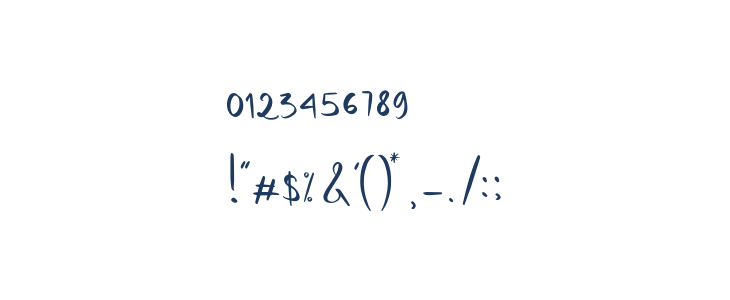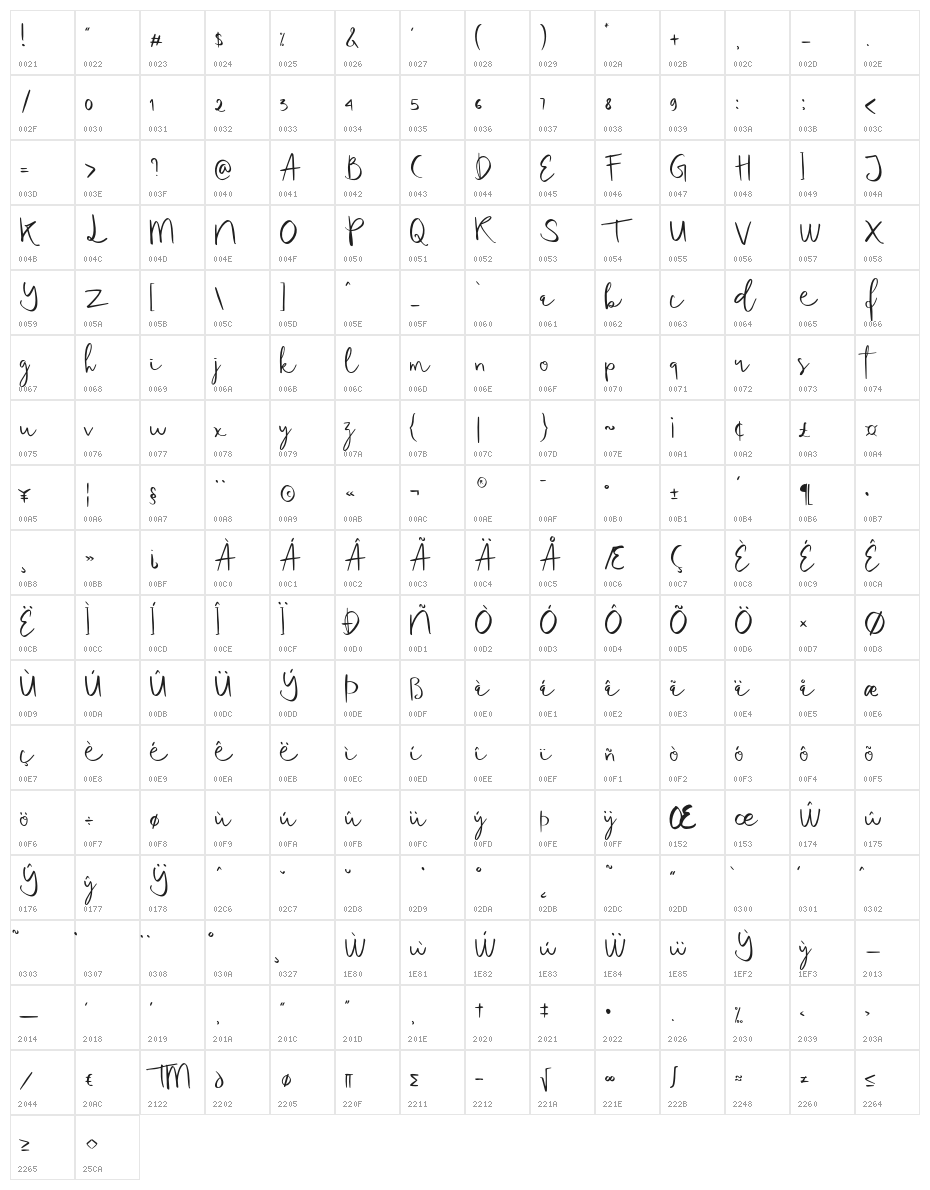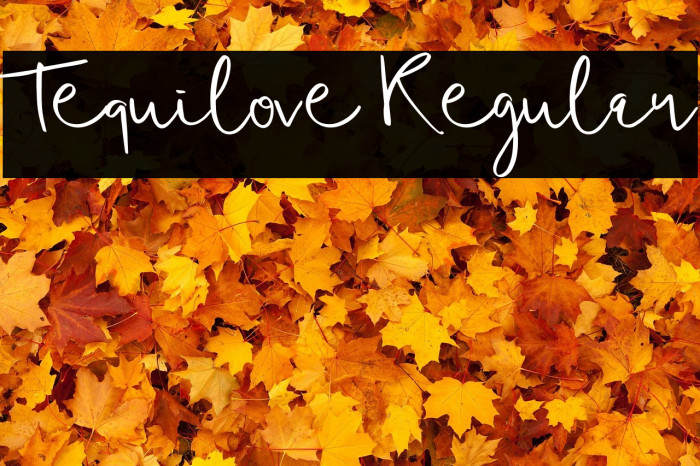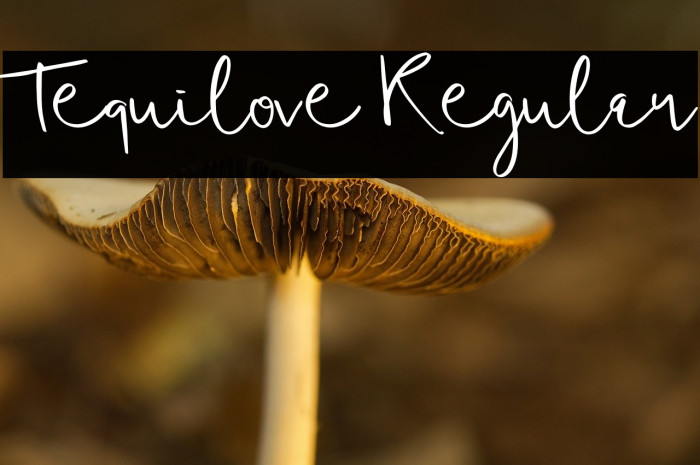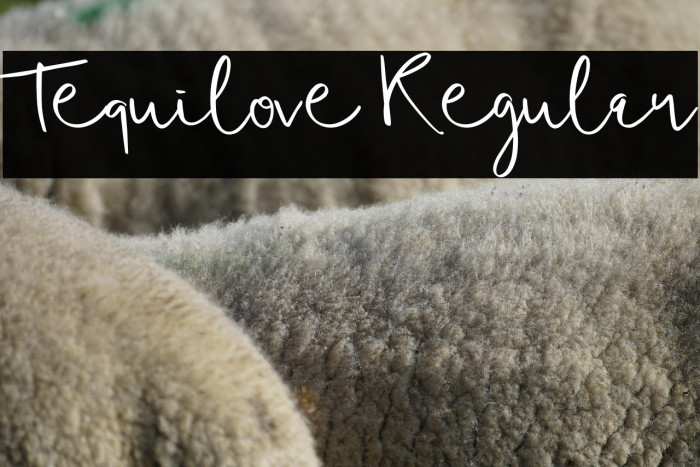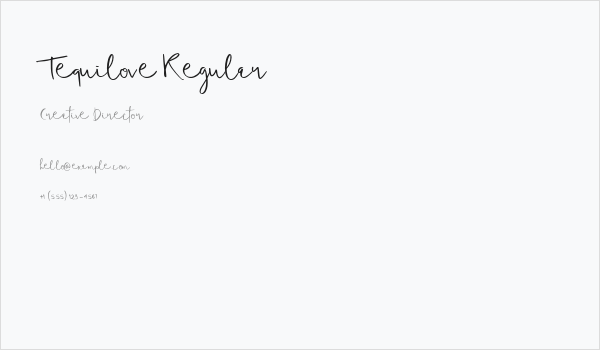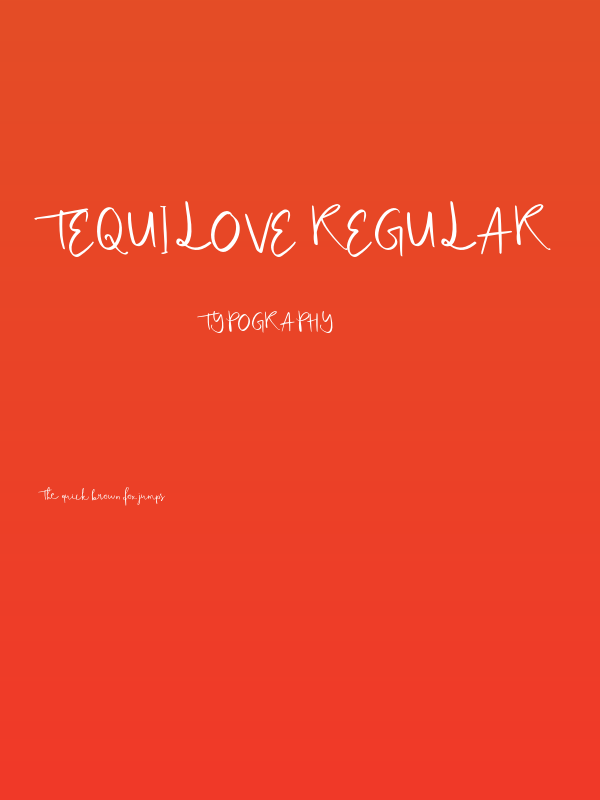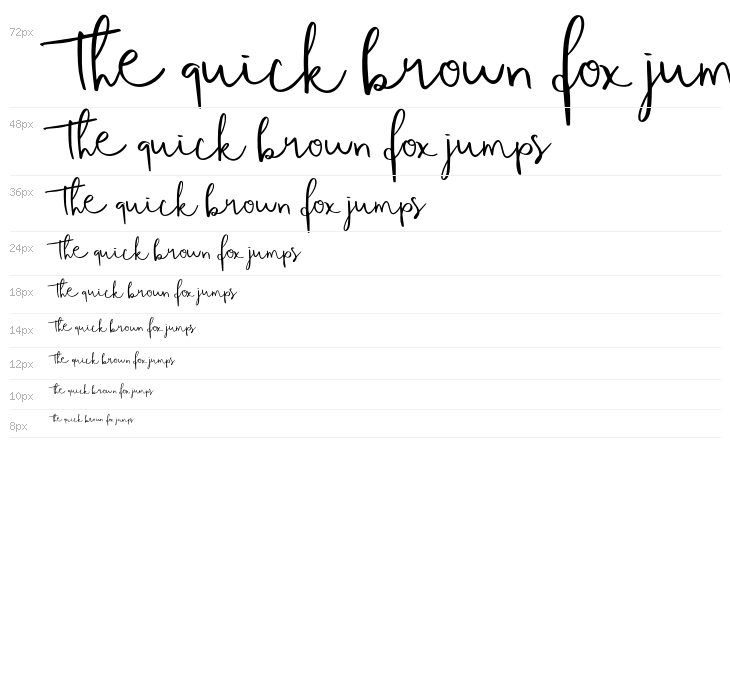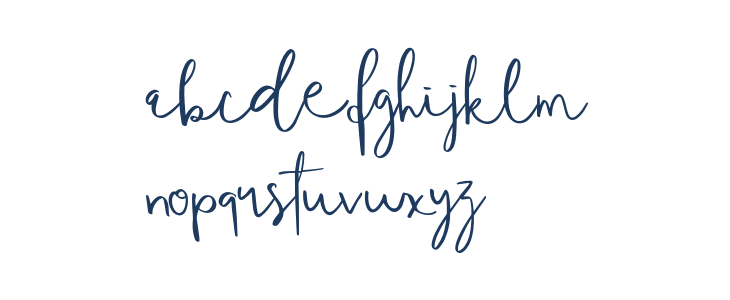
Tequilove Regular Font
Tequilove Regular Description
This font features a playful and whimsical script style, characterized by its fluid and dynamic strokes. The uppercase letters are bold and expressive, with unique flourishes that add a touch of elegance. The lowercase letters maintain a consistent flow, enhancing readability while retaining a casual charm. Numbers and special characters are crafted with the same attention to detail, ensuring a cohesive look across all text elements. The overall design is both modern and artistic, making it suitable for creative projects that require a personal touch.
Use CaseLogos, Headlines, Decorative text
Proposed ProjectsIdeal for wedding invitations, greeting cards, branding, and social media graphics.